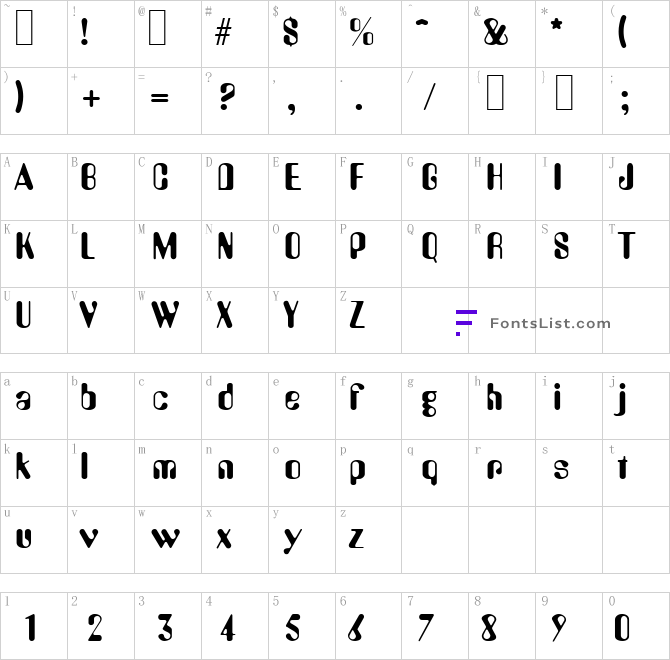
- Font Name:A770-Deco
- Full Name:A770-Deco-Regular
A770-Deco-Regular.ttf is a very beautiful artistic font, A770-Deco-Regular.ttf is widely used in the design and printing of various books and pictures,A770-Deco-Regular.ttf has a strong visual impact,A770-Deco-Regular.ttf is a commonly used font in newspapers, magazines and books, and is used in posters, e-commerce Poster design, store design, logo design, font design and other fields.A770-Deco-Regular.